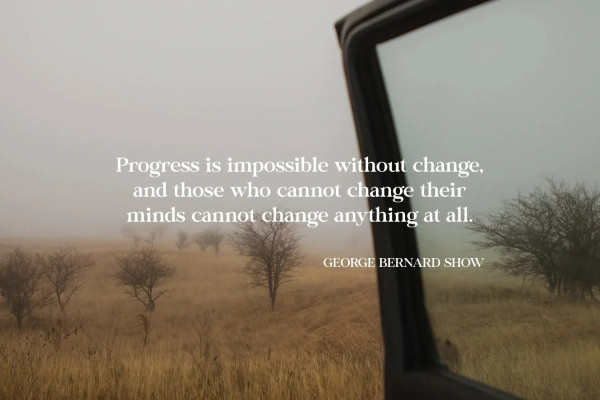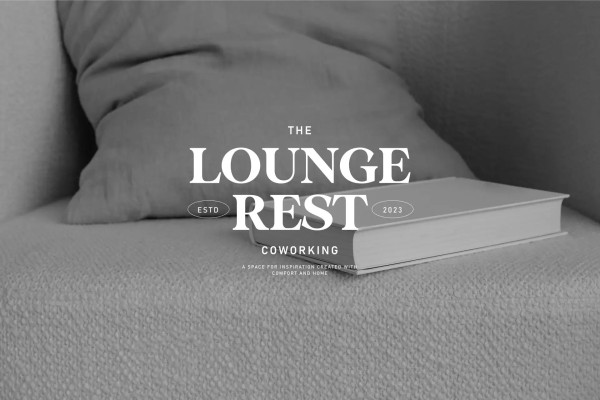
NT Mikella Font
NT Mikella Font is a new serif font from Artem Nevsky. This elegant font needs to be in your collection and is perfect for your next luxury design project. NT Mikella supports over 200 Latin-based languages.